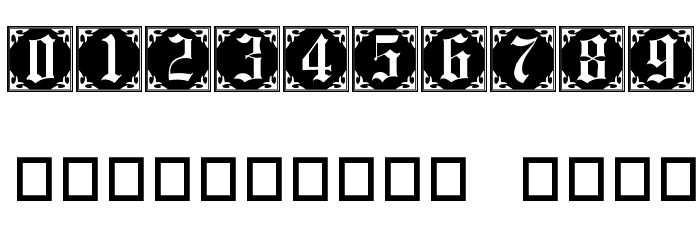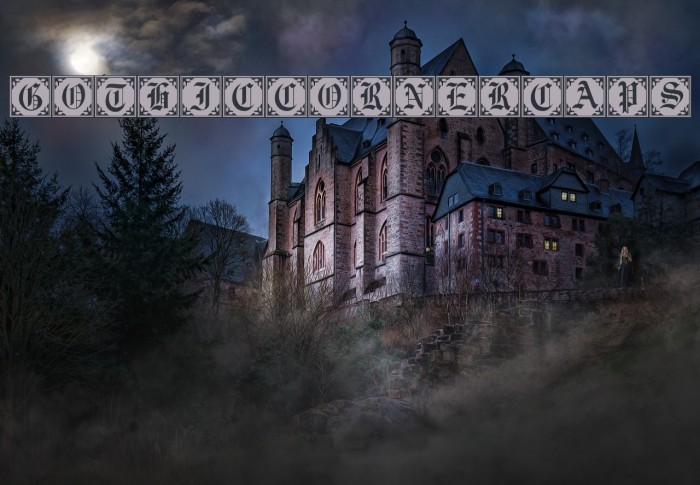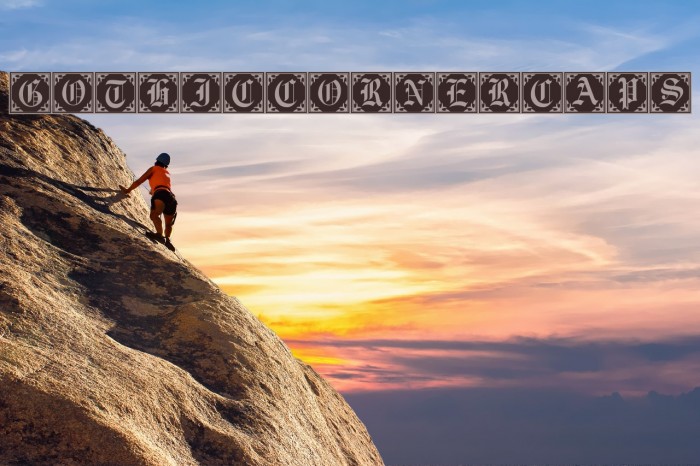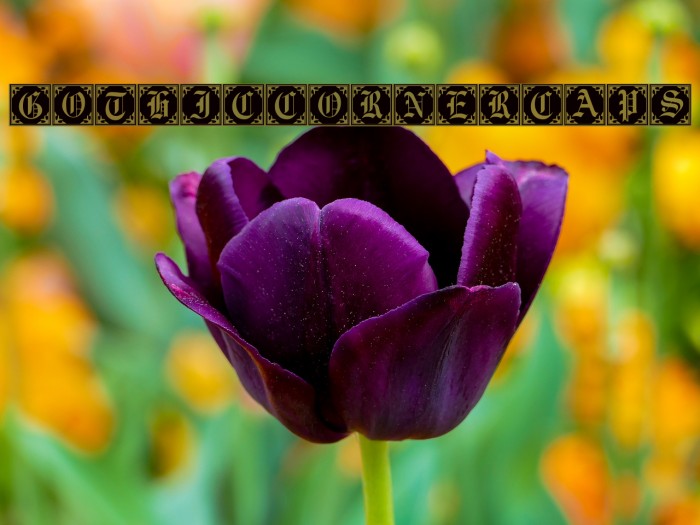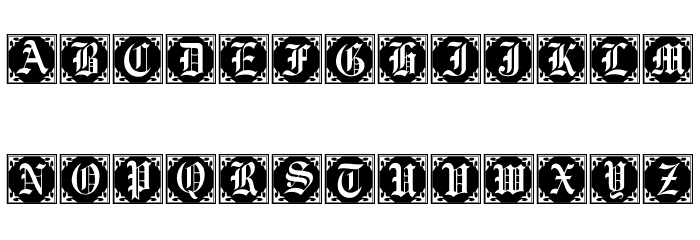
GothicCornerCaps Font
GothicCornerCaps Description
This font features an ornate and decorative style reminiscent of traditional Gothic script. Each character is enclosed within a square border adorned with intricate corner embellishments, enhancing its medieval aesthetic. The uppercase and lowercase letters maintain a consistent design, characterized by sharp, angular lines and elaborate serifs. The numerals follow the same stylistic approach, ensuring uniformity across the font. The overall appearance is bold and striking, making it ideal for projects that require a historical or dramatic flair.
| Overall Style | Vintage |
| Use Case | Headlines, Logos, Decorative purposes |
| Proposed Projects | Ideal for historical themed designs, book covers, posters, and branding that seeks a medieval or dramatic touch. |